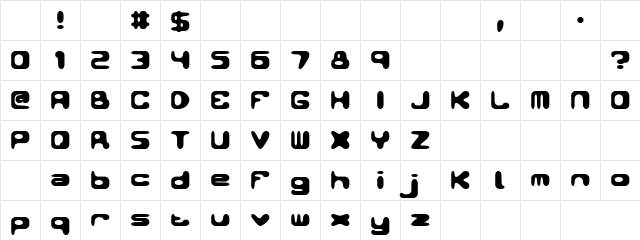
Luinettene Regular
Designer: JupiterImages
Design Context for Luinettene
Luinettene is a composed and adaptable typeface that performs quietly and consistently across a wide range of design contexts.